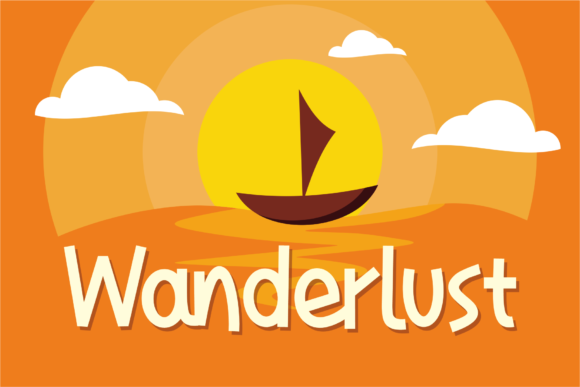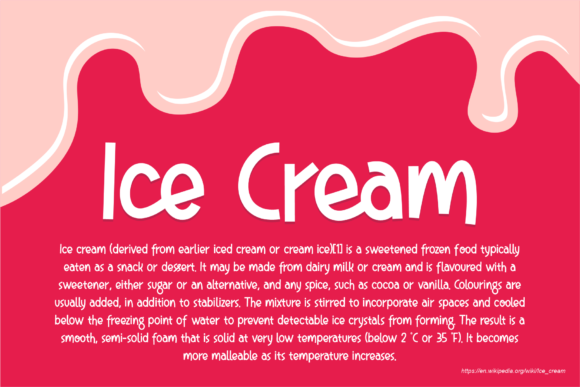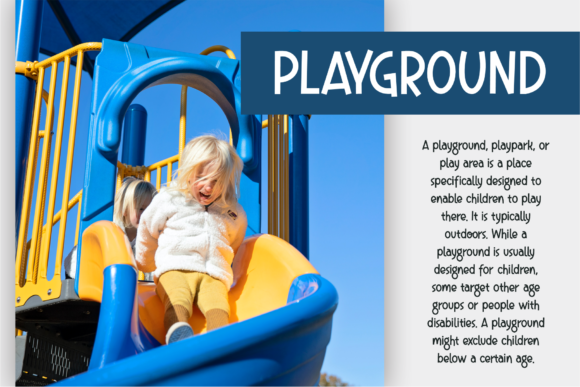
Introduction to Moomycraft Font
Moomycraft embodies fun, playfulness and authenticity.
This enchanting display font will turn any creative idea into a true standout .
Key Features of Moomycraft Font
Why Choose Moomycraft Font?
Moomycraft Font offers exceptional quality and versatility, making it a valuable addition to your design toolkit. Whether you’re creating for personal projects or commercial use, Moomycraft Font delivers professional results.